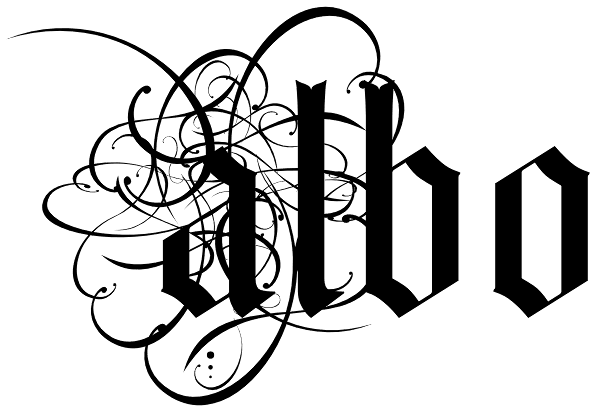
Albo
Albo is part of a new set of typefaces inspired in ancient documents from Portuguese 15th and 16th century books. Based on a document from Afonso d'Alboquerque (Goa, July, 1514), Albo was designed to be an inspiring typeface, a blackletter with...